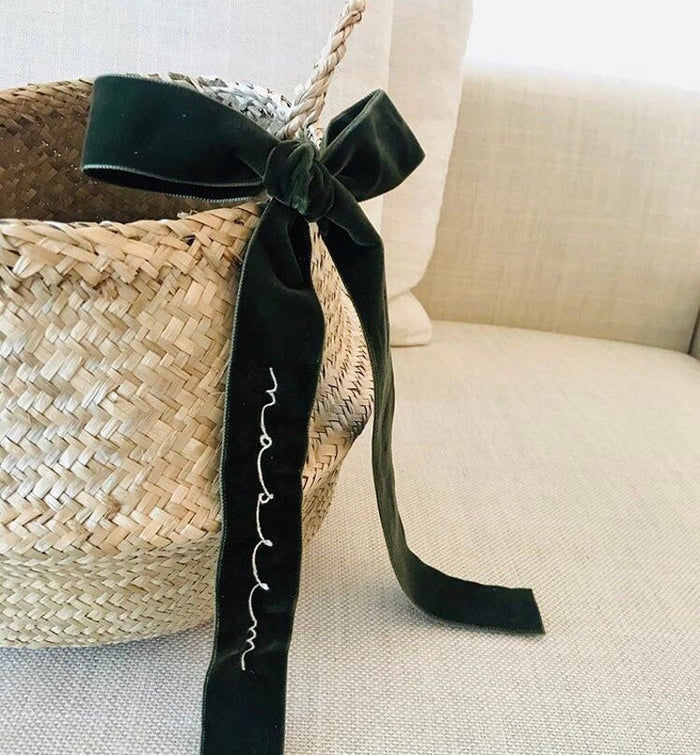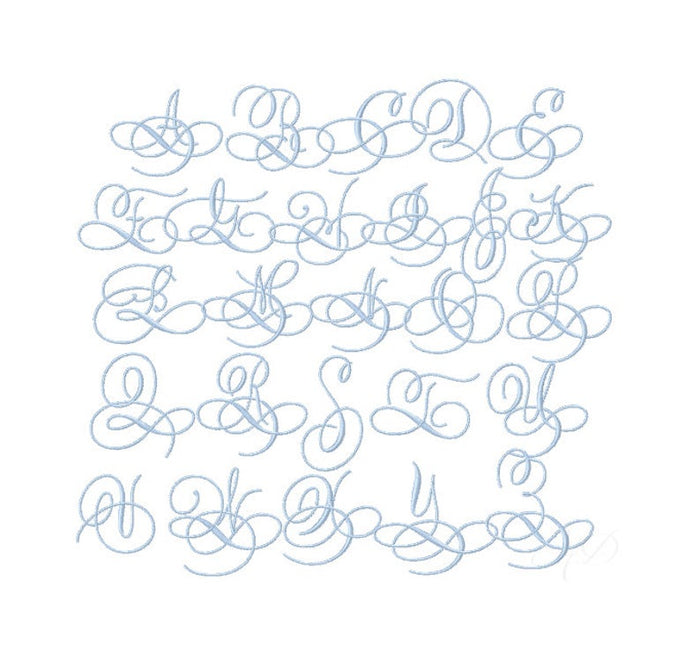
Small Sweet & Simple Embroidery Font
The Small Sweet & Simple Embroidery Font includes uppercase and lower case letters in satin stitch for embroidery machine monogramming. The uppercase letters measure 2.75-3” and the lower case letters measure .6-1”.